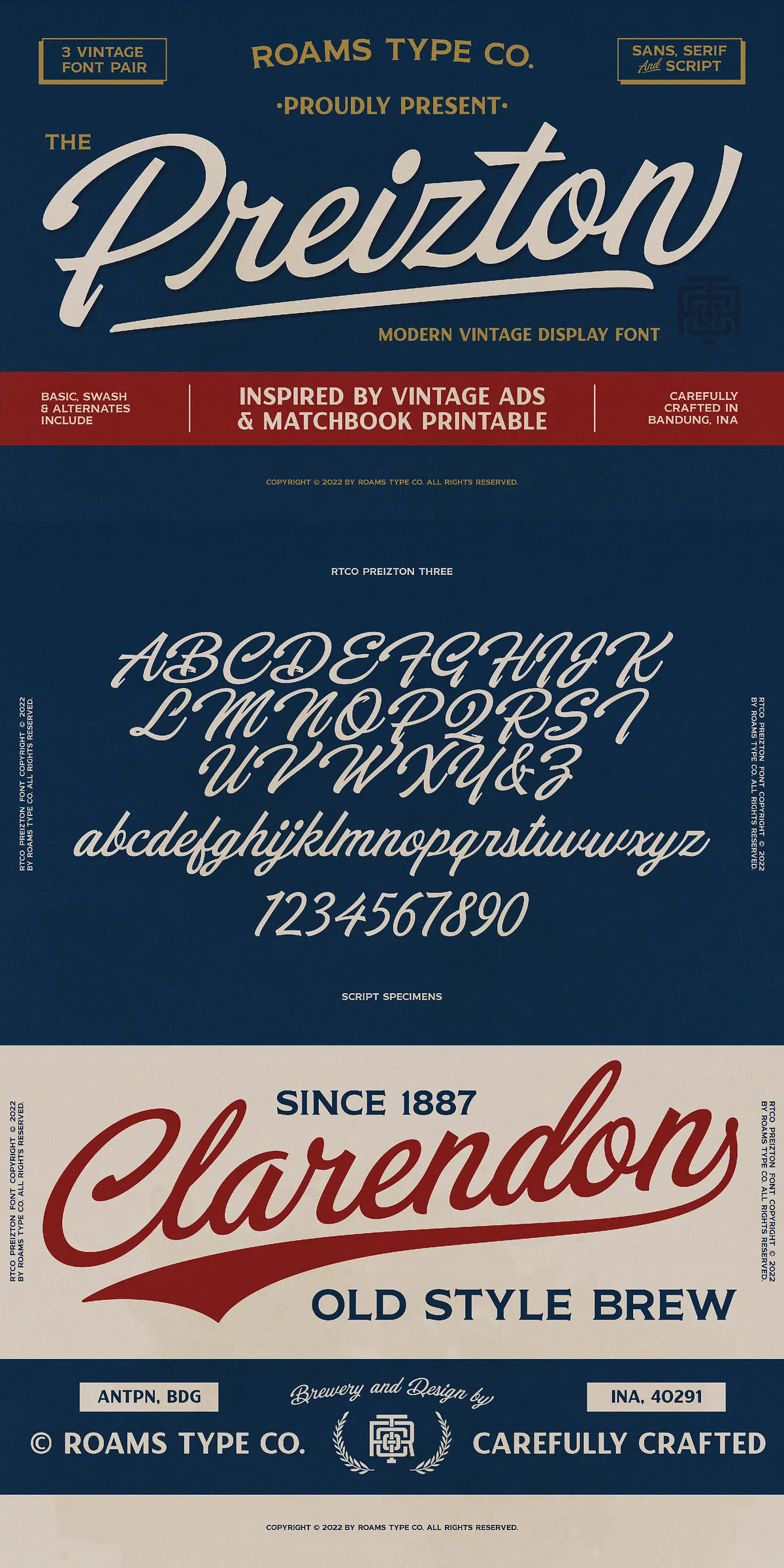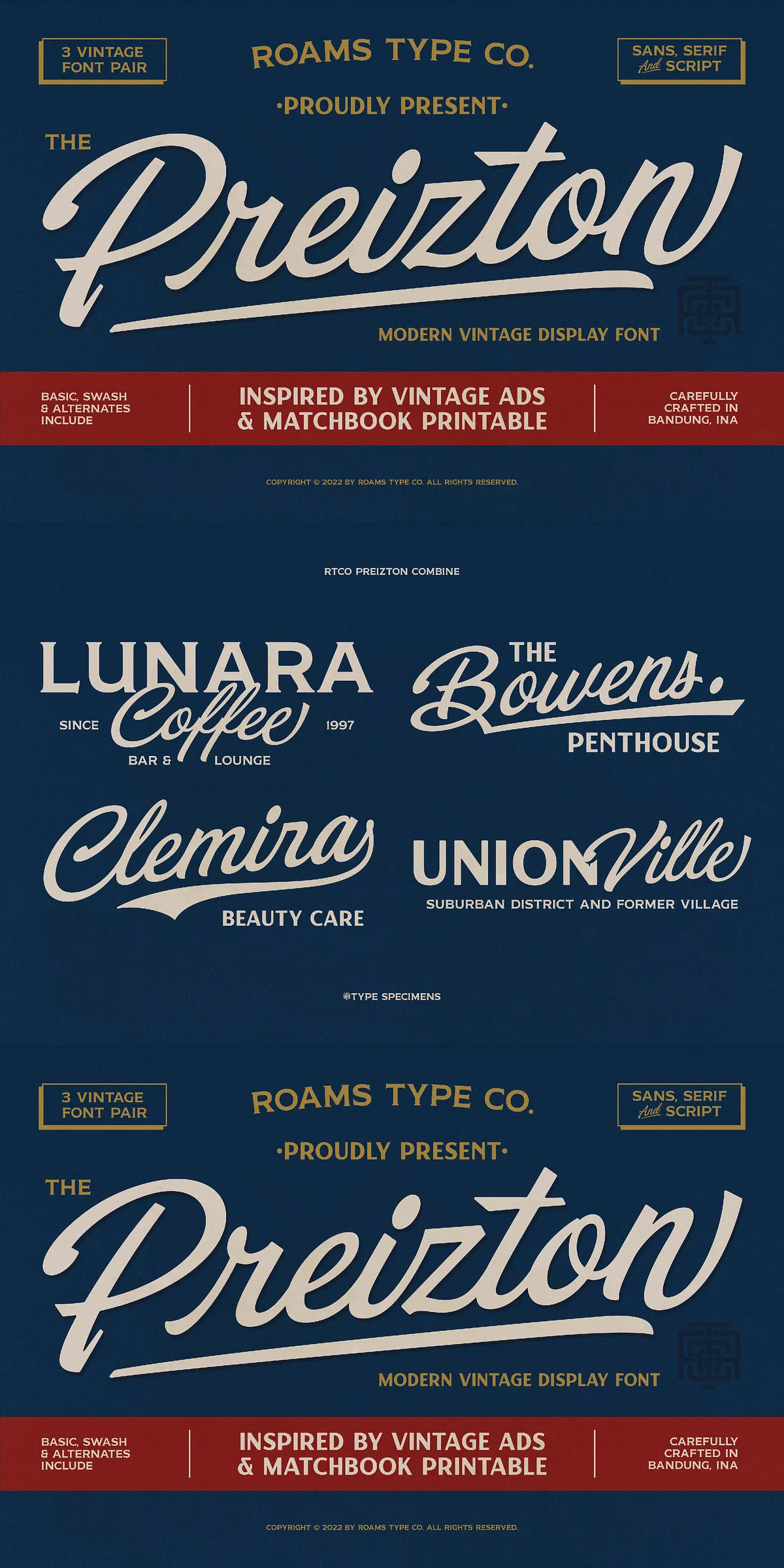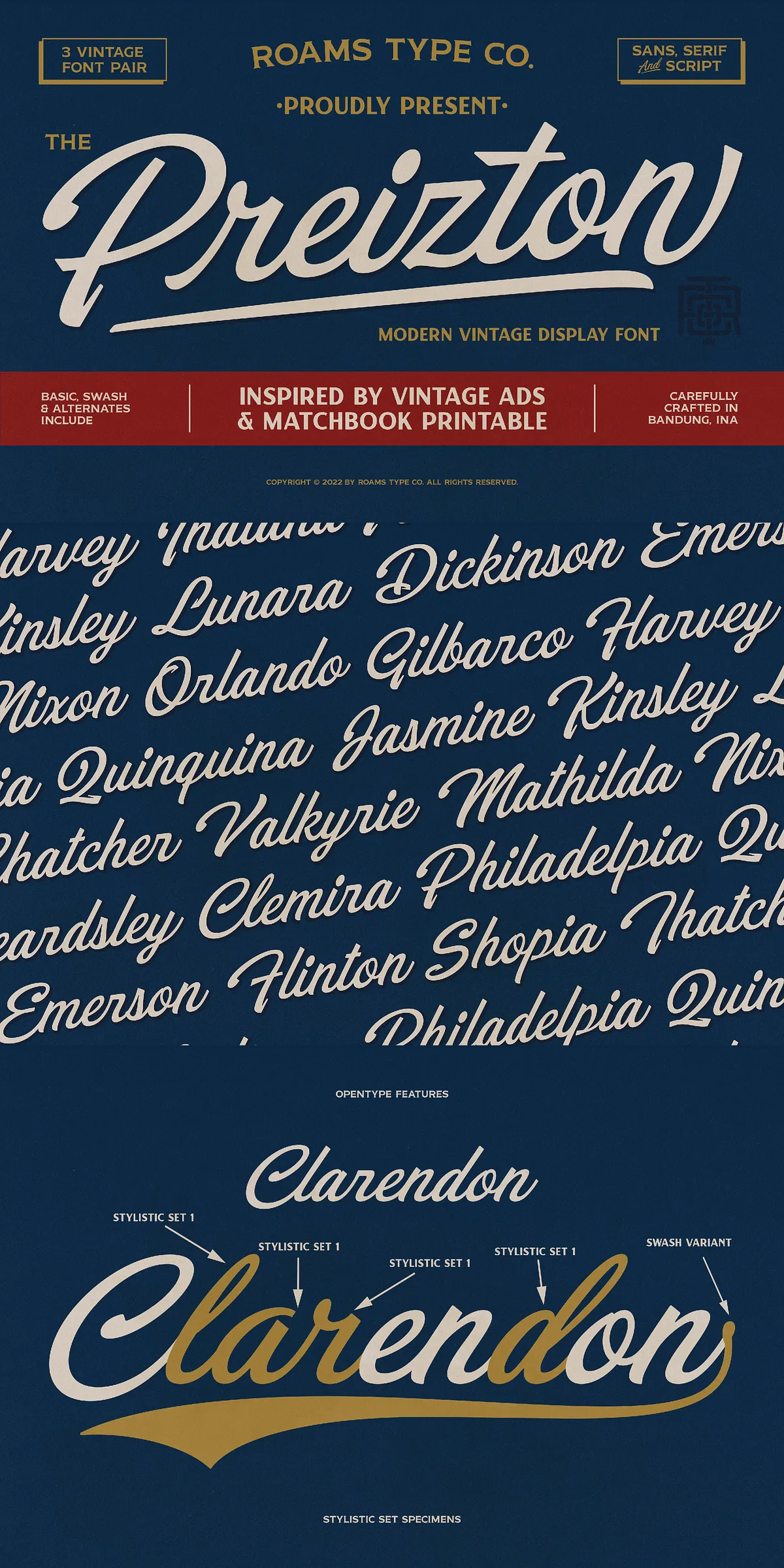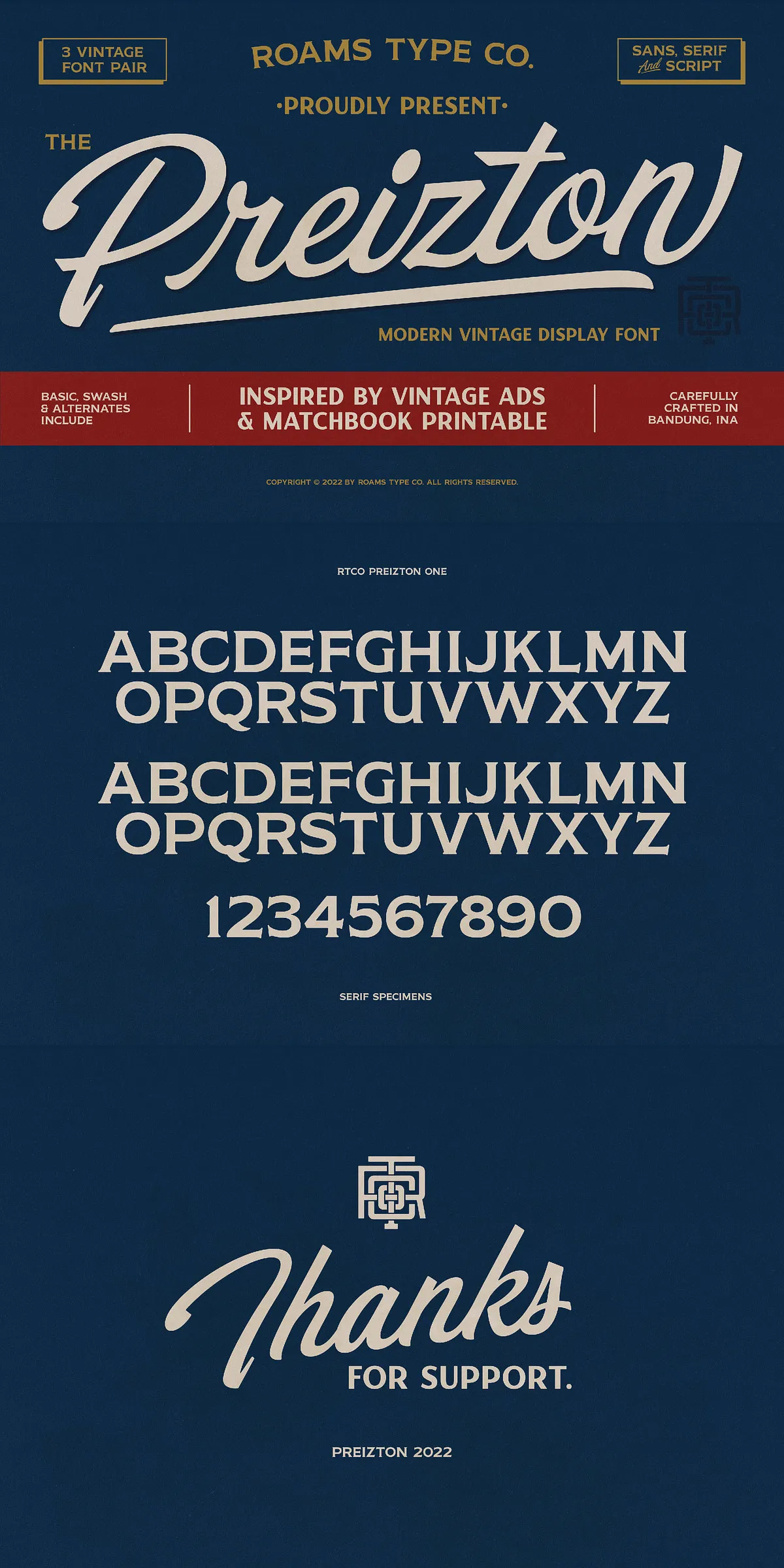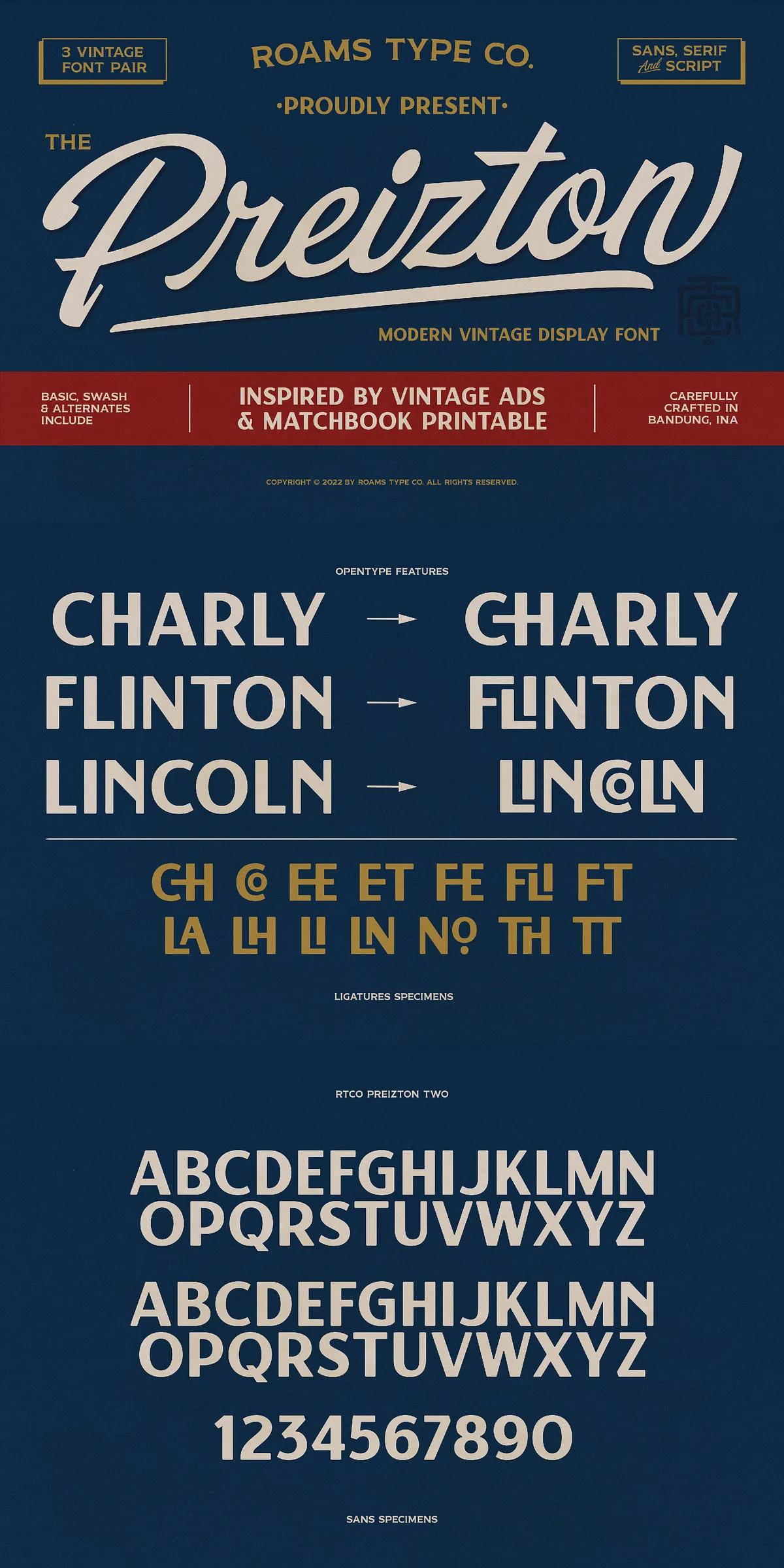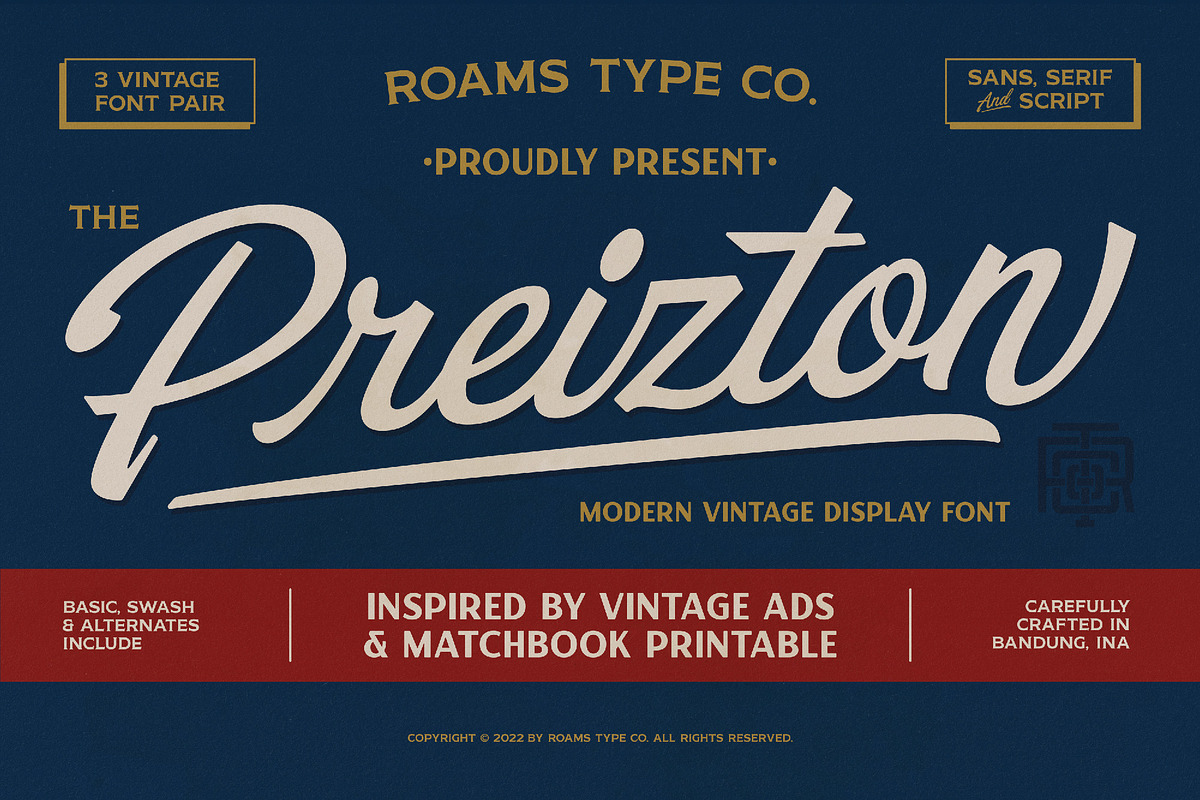
Step into a golden era of bold visuals and timeless style with RTCO Preizton Font — a dynamic trio of typefaces crafted from the spirit of vintage graphic design. Inspired by the hand-drawn charm of matchbooks, retro advertisements, and mid-century branding, this font family captures the soul of 1960s to 1980s visual culture — where every letter felt alive, intentional, and full of attitude.
The Complete Vintage Typography Trio
Three Distinct Styles, Infinite Creative Possibilities
RTCO Preizton isn’t just one font — it’s a complete system built for designers who demand style, authenticity, and versatility. The font bundle consists of three distinct styles, each with its own personality and purpose:
- RTCO Preizton Sans – Clean, bold, and modern with subtle retro flair. Perfect for headlines, branding, and minimalist layouts.
- RTCO Preizton Serif – Elegant and classic with refined details that evoke old-school print design and magazine layouts.
- RTCO Preizton Script – Flowing, hand-crafted charm with expressive alternates that mimic real brush or fountain pen strokes.
Whether you’re designing a nostalgic label, a vintage-inspired poster, or a modern logo with vintage soul, this trio gives you the full spectrum of visual storytelling.
Premium Features for Professional Designers
OpenType Power: Ligatures & Stylistic Alternates
The true magic of RTCO Preizton lies in its intelligent design. The San serif version includes full OpenType ligature support, automatically replacing awkward letter combinations with smoother, more dynamic forms. This creates a seamless flow across your text, transforming static type into living, breathing design elements.
Meanwhile, the Script font delivers multiple stylistic alternates for each character — giving you endless options to refine your typography for maximum impact. Use them to enhance readability, add flair, or create unique brand signatures.
Complete Character Set for Real-World Use
Designed with professionals in mind, RTCO Preizton includes:
- Full uppercase and lowercase letters
- Complete numerals and punctuation marks
- Accented characters for multilingual projects
- Special symbols and decorative glyphs
No missing characters. No placeholder boxes. Just robust, ready-to-use typography for complex designs.
Ideal Use Cases That Speak Volumes
Where Vintage Meets Modern Design
RTCO Preizton isn’t just for nostalgia — it’s for today’s creators who want to stand out. Use it for:
- Brand logos – Create instantly recognizable, character-filled identities.
- Merchandise & packaging – Elevate t-shirts, mugs, and boxes with authentic retro flair.
- Printed stickers & labels – Add vintage charm to your products with tactile, readable design.
- Poster & event design – Command attention with bold, nostalgic visuals.
Let your design tell a story — every letter in this font carries a piece of history.